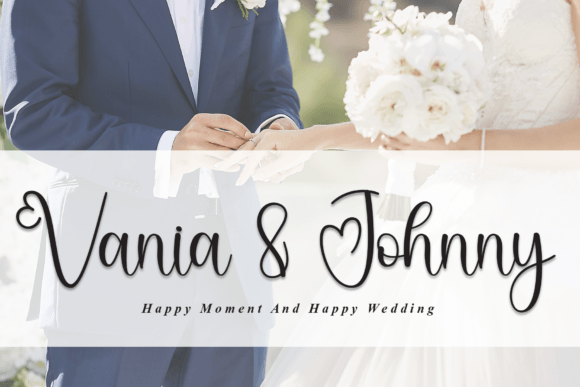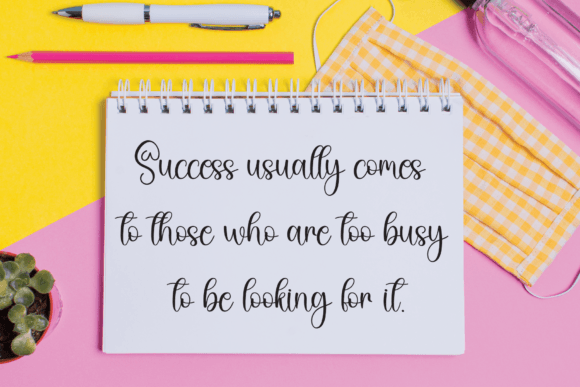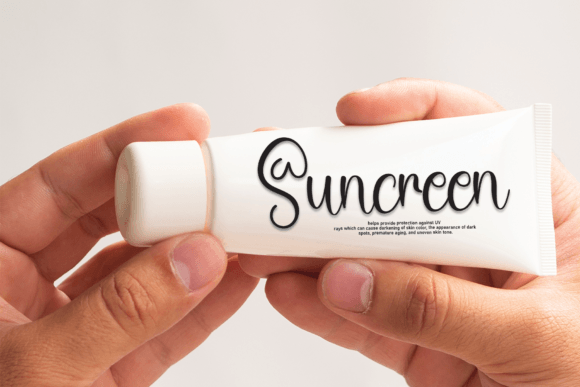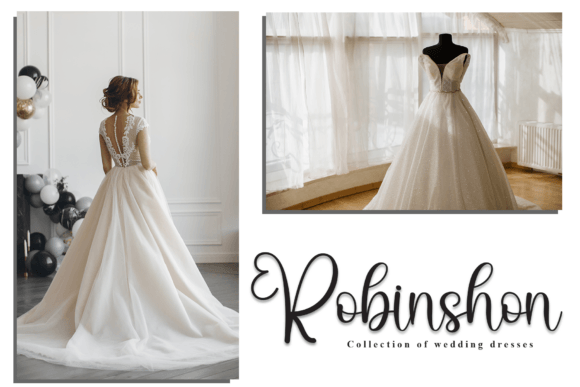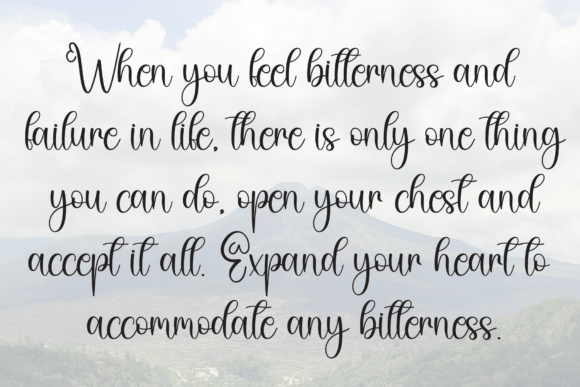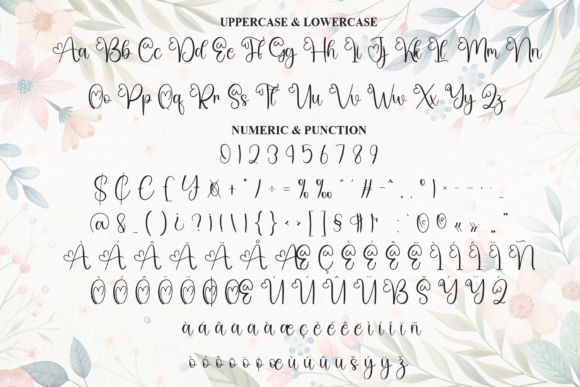
The Sweet Spot: Discovering Angista Font
I still remember the design project that led me to Angista Font. I was working on a custom wedding invitation for a dear friend, and I was determined to make it perfect. But, as I scrolled through my font library, I just couldn’t find the right fit. That’s when I stumbled upon Angista, and it was love at first sight! 💕
This charming handwritten font has a warm and friendly feel that instantly captured the essence of my project. Its letters have lovely heart-shaped tails at the ends, making it perfect for sweet messages and special designs. In this article, I’ll share my experience with Angista, its features, and how to make the most of it in your designs.
- ✨ Unique heart-shaped tails that add a touch of whimsy to any design
- ✅ Warm and friendly feel that’s perfect for projects that require a personal touch
- 💖 Highly legible, even at smaller font sizes
- 🎨 Versatile and suitable for a wide range of design projects, from invitations to branding
While Angista is an amazing font, there are a few things to keep in mind:
- ⚠️ The heart-shaped tails can be a bit finicky when it comes to kerning. Be sure to adjust the spacing to get the best results.
- 🤔 Some users may find the font a bit too ornate for certain projects. Experiment with different font sizes and styles to find the right balance.
The Story Behind Angista
Angista was designed with love and care by a talented font designer who wanted to create a font that would bring a smile to people’s faces. The designer’s inspiration came from traditional handwritten fonts, with a modern twist. The result is a font that’s both elegant and playful, perfect for a wide range of design projects.
Q: What type of projects is Angista suitable for?
A: Angista is suitable for a wide range of design projects, including invitations, branding, packaging, and more.
Q: Is Angista a difficult font to read?
A: No, Angista is highly legible, even at smaller font sizes. However, the heart-shaped tails may require some adjustments to kerning for optimal results.